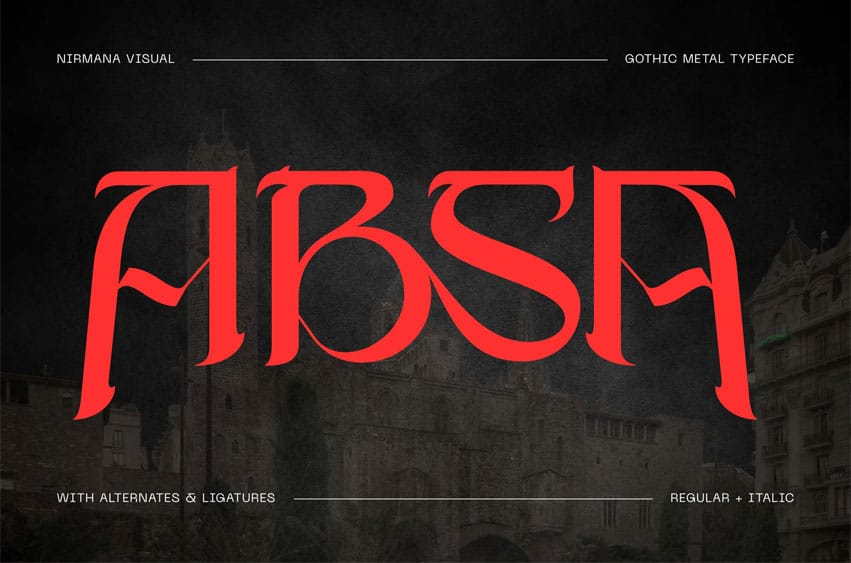
Absa FontĀ Blackletter offers beautiful typographic harmony for a diversity of design projects, including logos & branding, social media posts, advertisements & product designs.